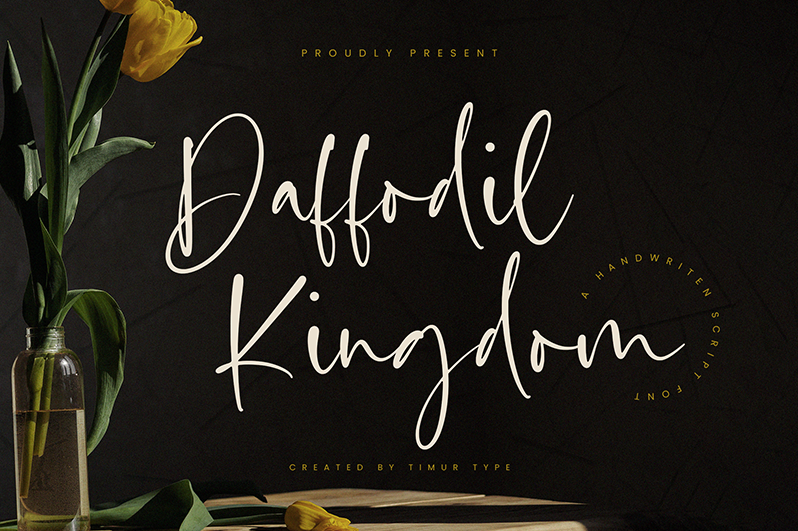
Introduced by Timurtype Studio! Daffodil Kingdom is a Handwritten Script Font This font is a whimsical and enchanting choice for your design projects. With its delicate and flowing letterforms, this font exudes a sense of elegance and grace. The handcrafted details and graceful curves bring a sense of beauty and sophistication to any text. The Daffodil Kingdom font is perfect for creating wedding invitations, logos, and branding materials that require a touch of romance and charm. Its unique and captivating style will transport you to a world of enchantment, making your designs truly stand out. Embrace the beauty of the Daffodil Kingdom handwritten script font and let your imagination bloom These fonts include: OTF TTF WOFF Daffodil Kingdom Font also supports multilingualism. Daffodil Kingdom Font features premium : -Full Set of standard alphabet and punctuation By installing or using this font, you are agree to the Product Usage Agreement: � This demo font is ONLY for PERSONAL USE. NO COMMERCIAL USE ALLOWED! � Here is the link to purchase full version and commercial license: https://timurtype.com/product/daffodil-kingdom/ � For Corporate use you have to purchase Corporate license timurtype.studio@gmail.com More... |